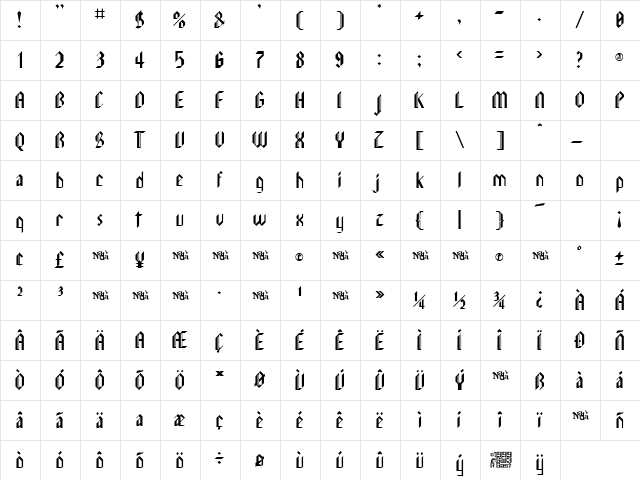
LeeBee Schwarz Regular
Design Context for LeeBee Schwarz Typeface
LeeBee Schwarz takes a measured approach to typography — its balanced proportions and neutral character make it a reliable workhorse for both digital and print work.